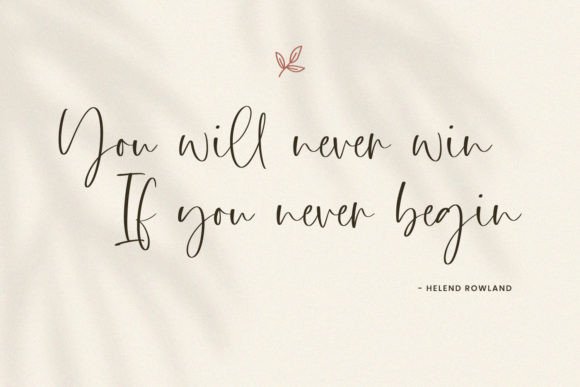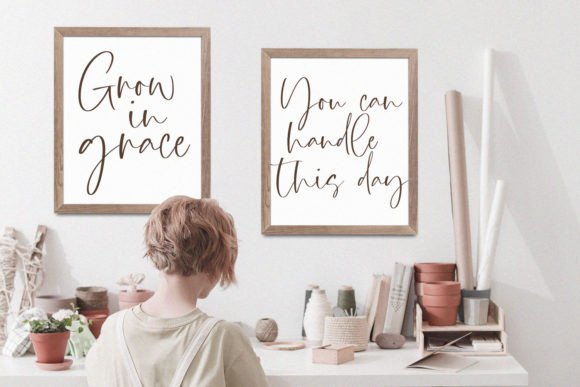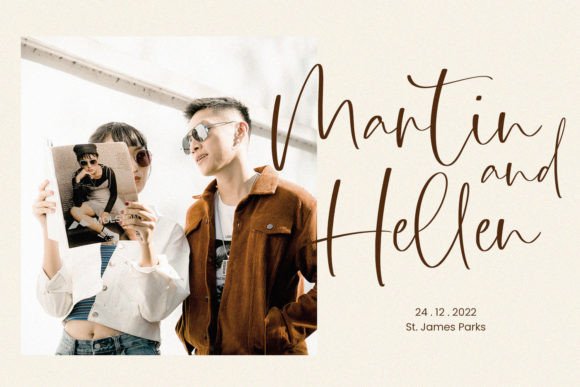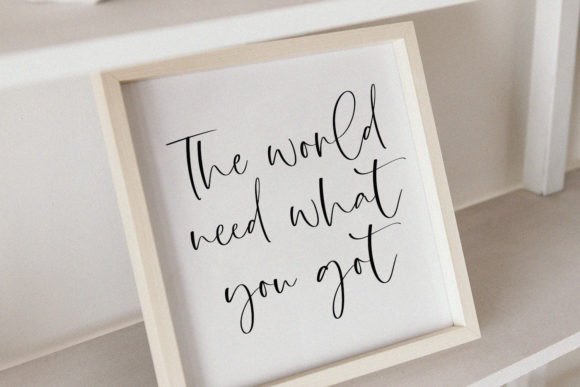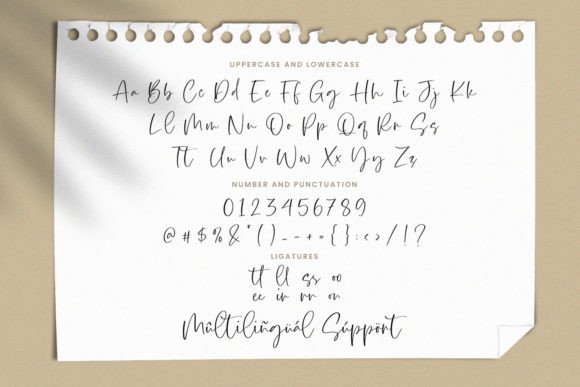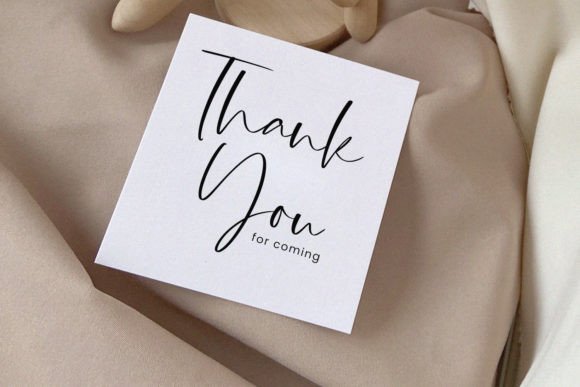
Introduction to Gastonila Font
Gastonila is a sweet and delicate handwritten font.
Dainty and joyful, this font will be ideal for writing wedding invitations, cards or any other design that may need a romantic, personalized touch .